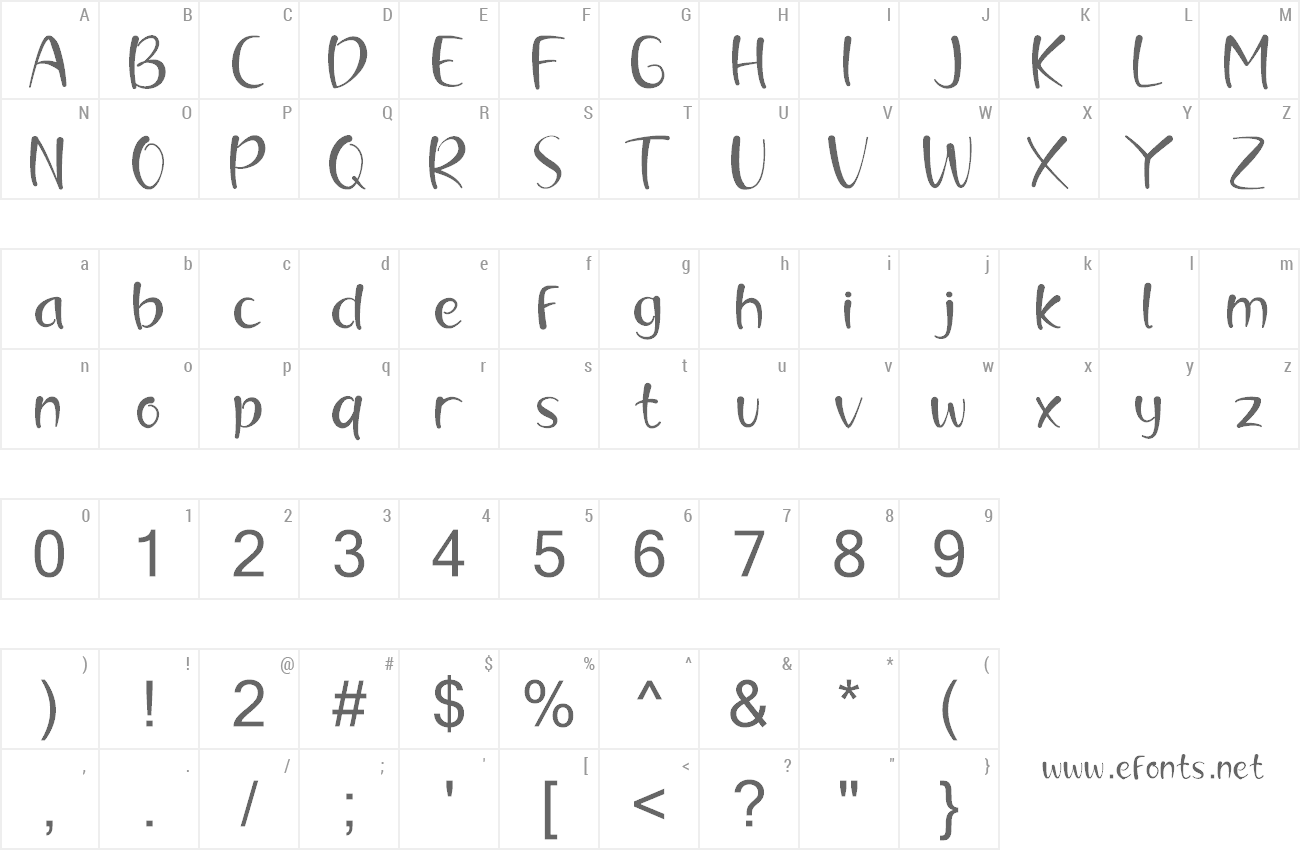
Brush Kencur is doodle typeface perfect for any fun quirky design work! This font can be used for anything such as Logo, T-Shirt designs, phone cases, greeting cards, quotes, restaurant logo, invitations, mugs and so much more! Get creative! if you want full version on : https://creativemarket.com/Vermilione/3511760-Brush-Kencur-Hand-Written-Sans https://thehungryjpeg.com/product/3532353-brush-kencur-hand-written-sans thanks, Wonderful Day Vermilione |